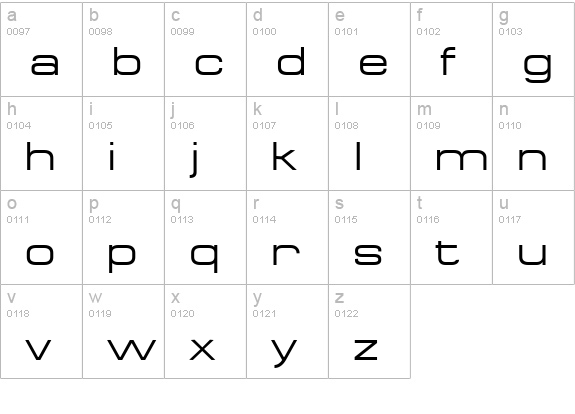
Federation Regular Font Details
Federation Regular is the standard, neutral variant in the Federation typeface family \xE2\x80\x94 well suited to general body text, paragraphs, and standard typographic work.
Federation Regular font is a versatile and modern typeface that is perfect for a wide range of design projects. Its clean lines and sleek appearance make it ideal for both digital and print applications. The font's balanced proportions and subtle detailing give it a professional and sophisticated look that is sure to elevate any design. Best of all, Federation Regular font is available for free download at FontsMarket.com. This means you can easily access this high-quality font without any cost, making it a great choice for designers on a budget or anyone looking to enhance their creative projects with a stylish and contemporary typeface. Don't miss out on this fantastic opportunity to add Federation Regular font to your font library today!